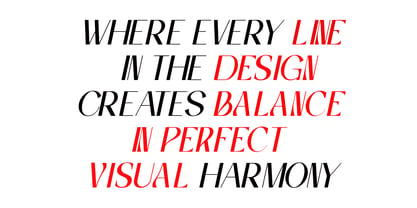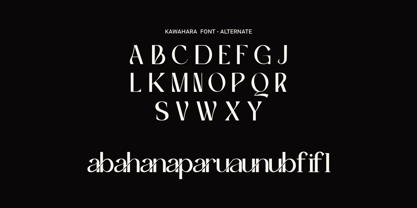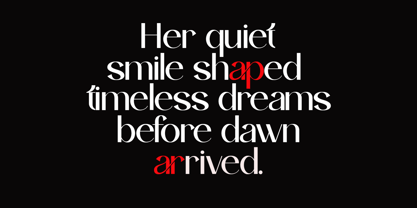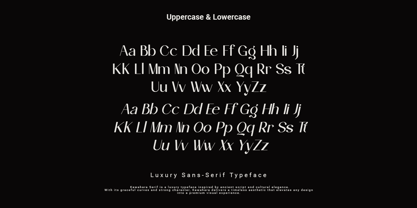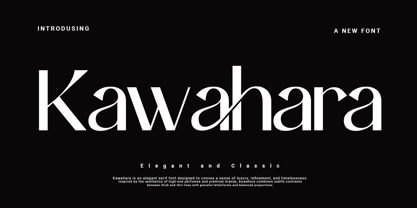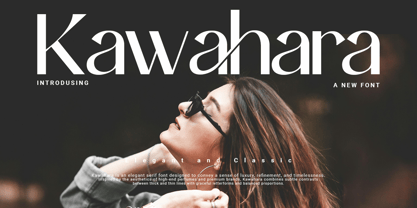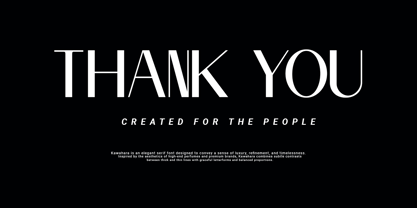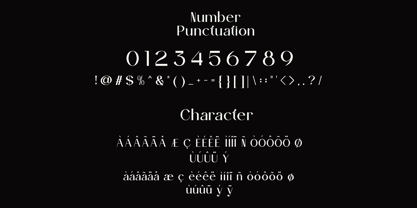
Kawahara
by Agung Sudirman
The Kawahara Font Family was designed by Agung Sudirman and published by Agung Sudirman. Kawahara contains 2 styles and family package options. More about this family
The Kawahara sans serif font is a modern, serif-free typeface designed with a minimalist approach, prioritizing clarity of form, balanced proportions, and a clean aesthetic. This typeface features bold yet smooth lines, with a simple letter structure, giving a professional, elegant, and easy-to-read impression at various sizes.
Visually, the Kawahara style typically features:
geometric or semi-geometric letterforms
modest stroke contrast
neat and balanced letter spacing
a modern, neutral, and flexible appearance
Because of these characteristics, this font is well-suited for:
branding and logos
editorial and magazine design
websites and UI/UX
headlines and body text
Furthermore, the Kawahara sans serif also reflects a design philosophy that prioritizes function without sacrificing beauty, thus creating a clean, strong, and contemporary impression in every use.